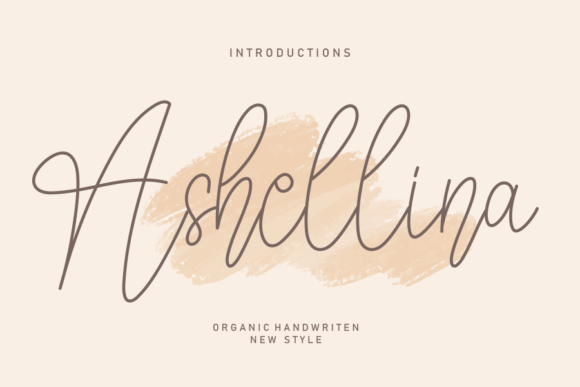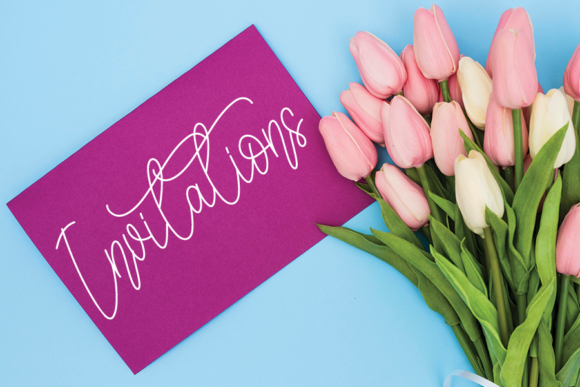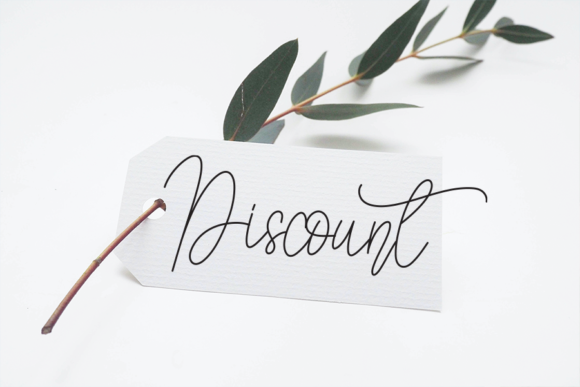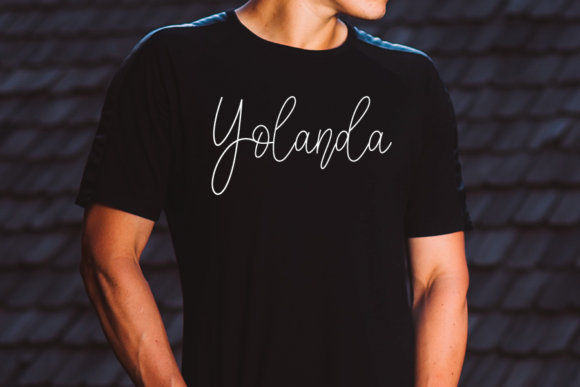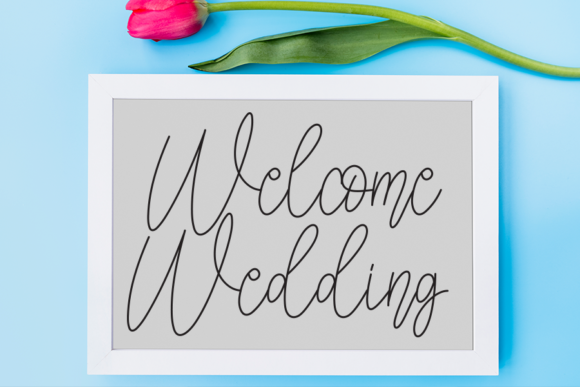
Ashellina Font
About Ashellina Font
Ashellina is a thin lettered script font featuring charming, playful characters that seem to dance along the baseline. Add this font to your most creative ideas, and notice how it makes them stand out!